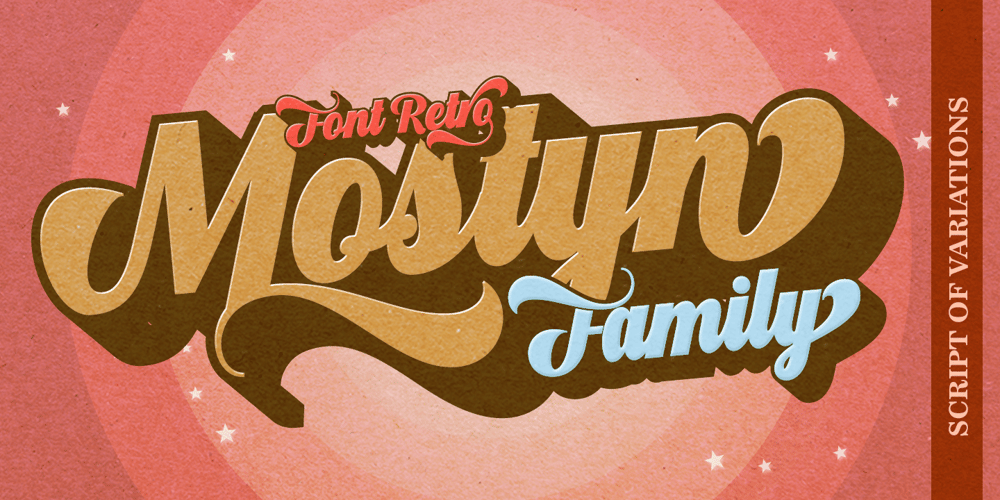
Mostyn Font Family was designed by Roiyani Teungku and published by Artisan Studio. Mostyn contains 16 styles and family package options. DescriptionMostyn Variantions is the font family, Mostyn Variantions is a font family that has 8 variations plus extrude in every variety, it is a model of modern calligraphy typefaces, in combination with a calligraphy writing style.Can be used for various purposes.such as headings, logos, wedding invitation, t-shirt, letterhead, lable, news, posters, badges etc. Multilingual support for various languages including: French, German, Spanish, Portuguese, Italian, Dutch, Finnish, Swedish, and more.Mostyn Variantions works great in any branding, logos, magazines, films. The different weights give you a full range of whole hosts of applications, while the outlined fonts give a real modern feel to any project.OpenType features can be accessed by using OpenType smart programs such as Adobe Photo Shop, Adobe Illustrator, Adobe Indesign, Corel Draw and Microsoft Office. can also be accessed through the character map.